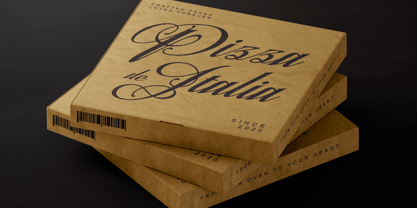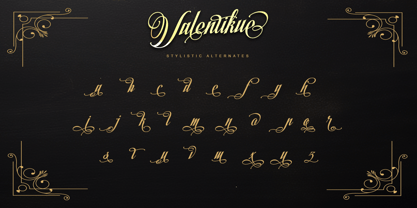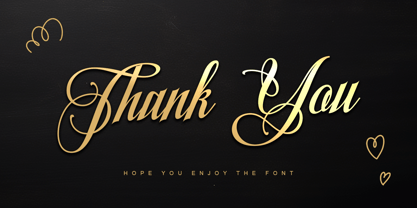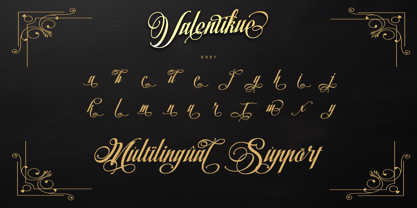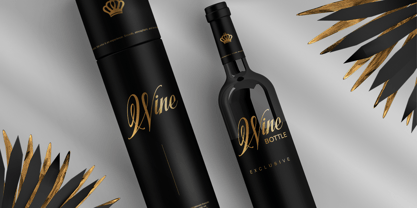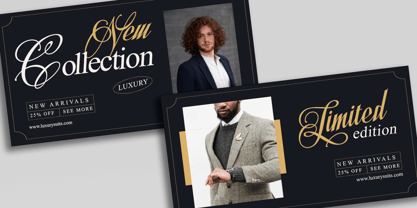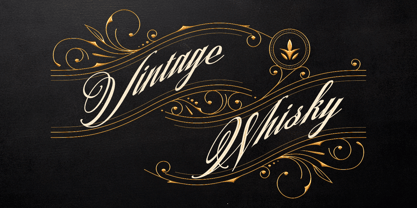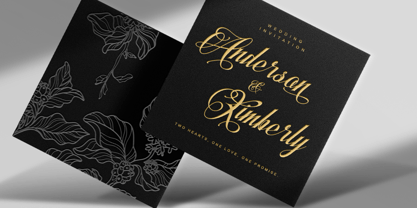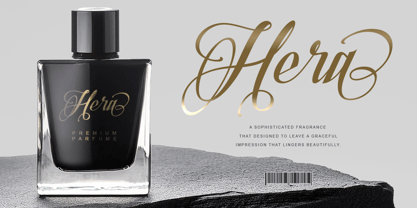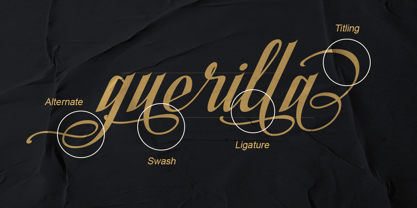
Valentikue
by Letterara
The Valentikue Font Family was designed by Thomas Aradea and published by Letterara. Valentikue contains 2 styles and family package options. More about this family
Introducing Valentikue, a modern script calligraphy font crafted to capture the poetry of romance and refined expression. Flowing with graceful curves and beautifully balanced strokes, Valentikue radiates warmth, intimacy, and timeless charm in every letter. Its smooth calligraphic rhythm creates an emotional connection, turning simple words into meaningful visual stories. Designed to shine in premium branding, romantic quotes, luxury packaging, editorial headlines, and expressive creative projects, Valentikue brings a soft yet confident presence that feels both contemporary and heartfelt. Each character is thoughtfully shaped to deliver elegance without excess, making your typography feel personal, fluid, and unforgettable. Fully PUA encoded, Valentikue allows effortless access to its decorative glyphs and swashes, giving you complete freedom to craft unique and expressive compositions. Let Valentikue elevate your designs with a touch of romance, sophistication, and artistic soul—where every letter speaks from the heart.